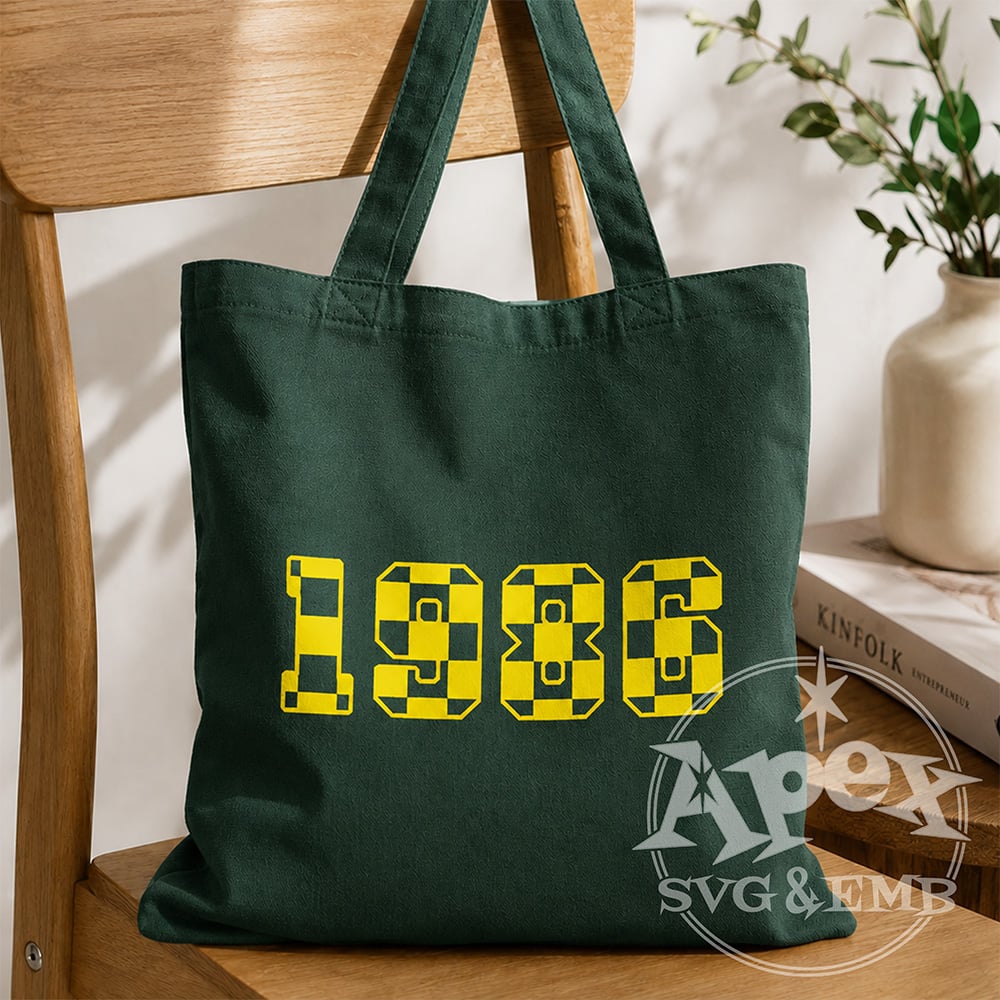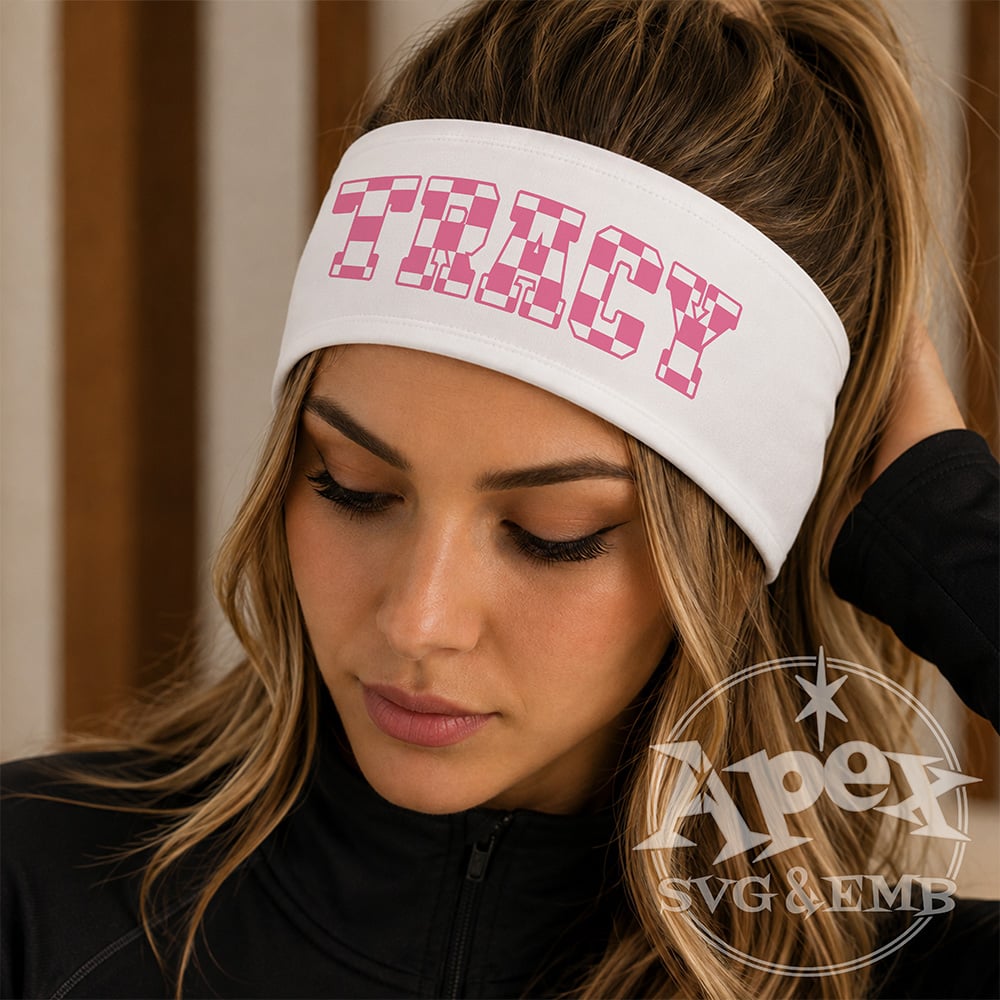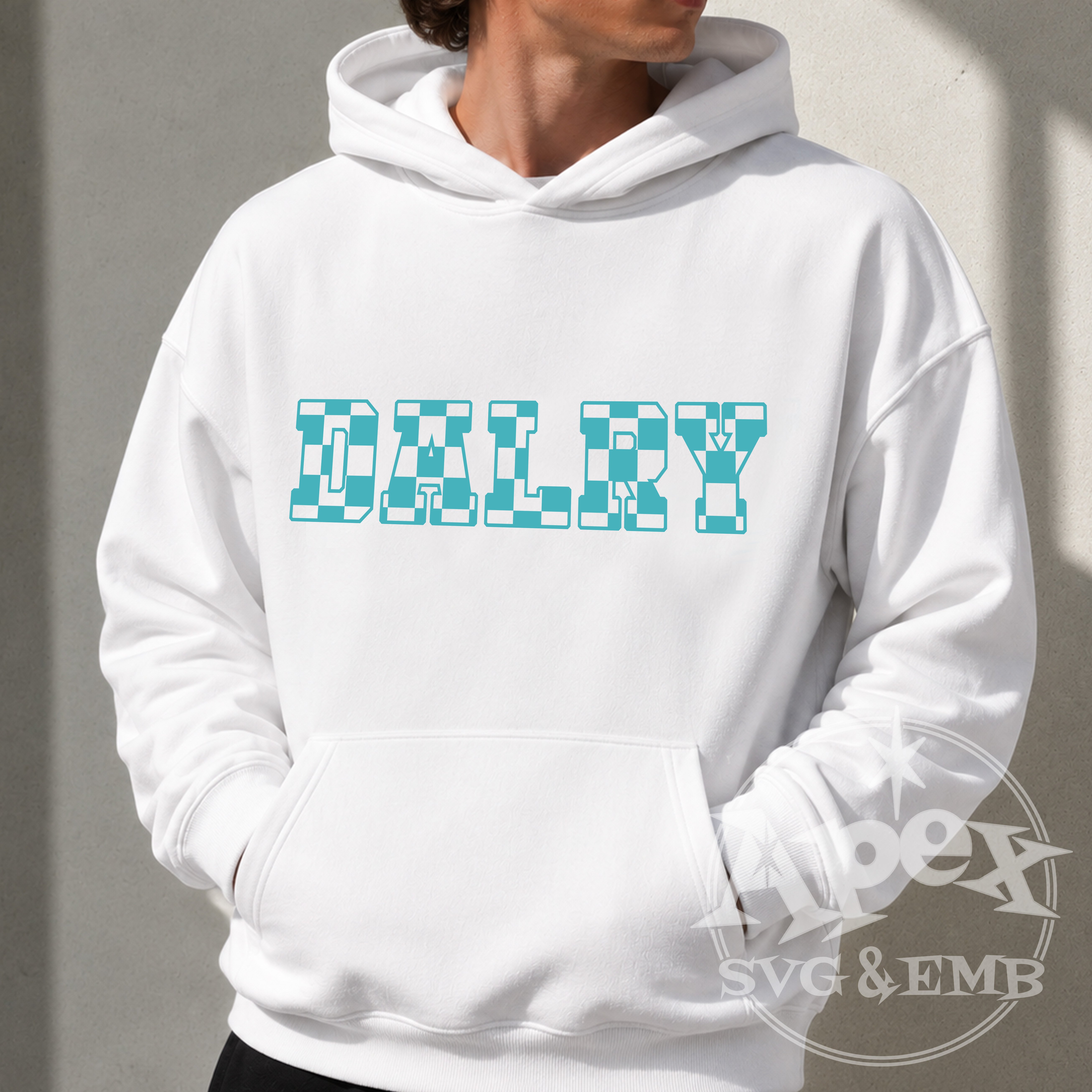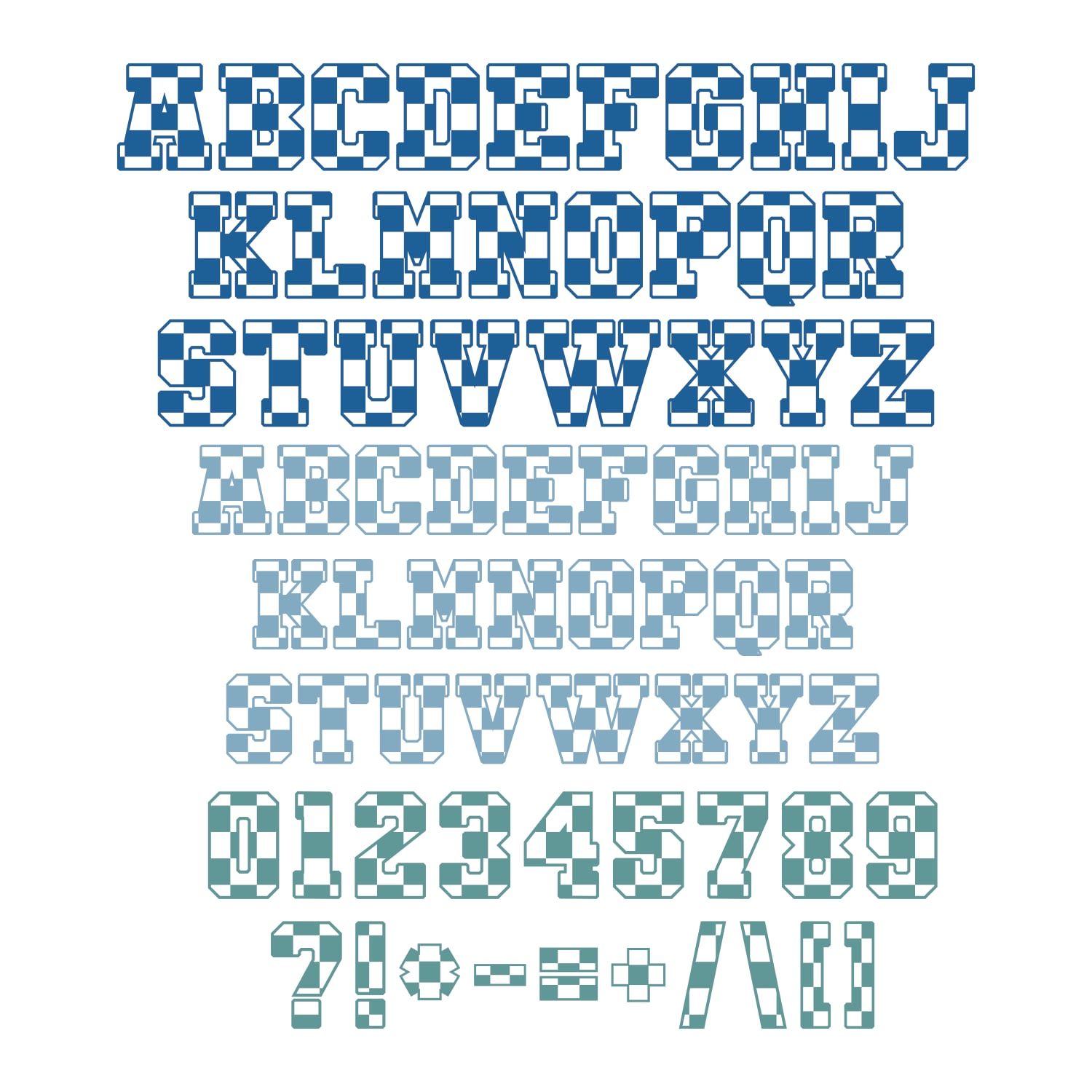
Create Awesome personalized names with this Checker Board Checkerboard style School Font Letters Monogram. Featuring bold geometric lettering. This font is perfect for creating custom initials, personalized gifts, logos, wedding designs, and craft projects.
The center letter combined with matching side initials creates a classic split monogram appearance that works beautifully on shirts, tumblers, mugs, signs, invitations, decals, and boutique branding.
Font Features:
- Checker board Block Monogram
- Three-Letter Initial Design
- Art Deco Inspired Lettering
- Decorative Diamond Accents